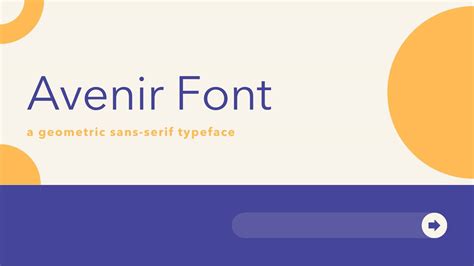
Hey guys, let’s talk about the Avenir font . If you’re into design, typography, or just appreciate a clean, modern look, you’ve probably come across this gem. It’s one of those fonts that just works across a ton of applications, from branding to web design to print. So, how do you get your hands on it? Let’s dive into the world of Avenir font download options, the different versions available, and why this typeface has stood the test of time. We’ll cover everything you need to know to start using Avenir in your next project. Stick around, and we’ll make sure you’re equipped with the knowledge to find and download the right Avenir font for your needs. It’s super versatile, and once you start using it, you’ll see why it’s a favorite for so many designers.
Understanding Avenir: More Than Just a Pretty Font
Before we jump into the download process, let’s take a moment to appreciate why the Avenir font is so beloved. Designed by Adrian Frutiger in 1987, Avenir means “future” in French, and it was his attempt to create a truly modern, geometric sans-serif typeface that was also humane and readable. He drew inspiration from geometric sans-serifs of the past, like Futura, but aimed to add a touch of warmth and organic structure. This balance is key to its enduring appeal. Unlike strictly geometric fonts that can sometimes feel cold or mechanical, Avenir has subtle irregularities that make it more friendly and approachable. Think about the ‘o’ – it’s not a perfect circle, and the ascenders (like on the ‘h’ or ‘l’) have a slight humanist touch. This blend of geometric structure and humanist feel makes Avenir incredibly versatile. It’s legible on screens, looks sharp in print, and carries a sense of sophistication without being stuffy. It’s the kind of font that elevates your design without shouting for attention, a subtle but powerful tool in any designer’s arsenal. The various weights and styles available in the Avenir family further enhance its usability, offering designers a broad spectrum to work with for everything from headlines to body text. This attention to detail and thoughtful design is what makes Avenir a timeless classic.
Avenir vs. Avenir Next: What’s the Difference?
Okay, so you’re probably wondering, “What about Avenir Next ? Is it the same thing?” Great question, guys! While they share the same DNA, Avenir Next is actually an updated and expanded version of the original Avenir. It was released in 2007, a collaboration between Frutiger and Akira Kobayashi, to refine and extend the family for the digital age. They tweaked the spacing, redrawn some characters for better legibility on screens, and added more weights and styles. Specifically, Avenir Next offers a wider range of weights, including lighter and bolder options that weren’t as prevalent in the original. The x-height was also adjusted for improved readability in smaller sizes and on lower-resolution displays. The goal was to make it even more suitable for the demands of contemporary digital design, while still retaining the core essence of Frutiger’s original vision. So, if you’re working on a project that will primarily be viewed on screens, or if you need a more extensive range of weights for complex typographic hierarchies, Avenir Next might be your go-to. The original Avenir still holds up beautifully, but Avenir Next is often considered the more robust and refined option for modern applications. Understanding these nuances can help you make the best choice for your specific design needs. It’s like comparing a classic car to a modernized version – both are great, but one might be better suited for today’s roads.
Using Avenir in Your Designs: Tips and Tricks
Once you’ve got that Avenir font download sorted and your license secured, it’s time to put it to work! Avenir and Avenir Next are incredibly versatile, but like any tool, knowing how to use them effectively can make a huge difference. For headlines and titles, the bolder weights (like Medium, Heavy, or Black) really shine. They offer excellent impact and readability, even at large sizes. Pair a bold Avenir headline with a lighter weight, like Light or Book, for body copy to create a clear typographic hierarchy. This contrast helps guide the reader’s eye through your content. In web design, Avenir Next is particularly fantastic due to its optimized screen rendering. Consider using it for navigation menus, call-to-action buttons, and key informational text. Its clean lines ensure legibility across various devices and screen resolutions. For print materials, like brochures, posters, or business cards, Avenir conveys a sense of professionalism and modern elegance. Don’t be afraid to experiment with the different weights. You can create subtle emphasis by using italics or slightly bolder variants within the same text block. For branding, Avenir is a solid choice because it’s recognizable, professional, and doesn’t easily go out of style. Its neutrality means it can adapt to various brand personalities, whether you’re aiming for sophisticated, friendly, or innovative. Just remember to maintain good spacing – even the best fonts can falter with poor kerning or leading. Use the OpenType features if available, like alternate characters or ligatures, to add that extra polish. Ultimately, the key is to let the font’s inherent qualities speak for themselves and use its range to enhance your message, not overpower it.
Pairing Avenir with Other Fonts
While Avenir is a powerhouse on its own, sometimes you might want to pair it with another font to add more character or contrast to your design. This is where things get fun, guys! When pairing, the general rule of thumb is to contrast, not compete. Since Avenir is a sans-serif with geometric and humanist influences, you have a lot of flexibility. A popular and effective pairing is with a serif font. Think of pairing a clean Avenir headline with a more traditional or robust serif for body text. This creates a classic, sophisticated look that works well for editorial design, websites, or even formal invitations. Good serif options that complement Avenir include Garamond, Merriweather, or even something more modern like Playfair Display. Another approach is to pair Avenir with a more distinct or decorative display font for headlines, using Avenir in a lighter weight for the supporting text or body copy. This allows a more stylized font to grab attention without making the entire design feel chaotic. Alternatively, you can pair Avenir with another sans-serif, but choose one with a noticeably different character. For example, pair Avenir’s clean geometry with a more humanist sans-serif like Open Sans or Lato for a softer feel, or contrast it with a more industrial, utilitarian sans-serif if your brand calls for it. The key is to ensure that each font has a distinct role and that they work harmoniously together to serve the overall design. Test your pairings at different sizes and contexts to see how they perform. A well-chosen font pairing can significantly elevate your design and make it more engaging for your audience.
The Legacy and Future of Avenir
It’s pretty incredible to think that a font designed in the late 1980s is still so relevant and widely used today. The Avenir font is a testament to timeless design principles. Adrian Frutiger’s intention to create a typeface that was both modern and humane clearly resonated, and its adaptability across decades and technological shifts is remarkable. The evolution into Avenir Next further cemented its place in the digital age, proving that good design can and should evolve. Its clean, legible, and sophisticated aesthetic makes it a go-to for countless brands and designers seeking reliability and style. From tech startups to luxury brands, from websites to packaging, Avenir’s presence is widespread, often working so seamlessly in the background that you might not even consciously notice it, yet its contribution to the overall design is undeniable. This ubiquity speaks volumes about its quality and appeal. As design trends continue to shift, the fundamental principles of clarity, readability, and aesthetic balance that Avenir embodies will likely ensure its continued relevance. It’s a font that doesn’t rely on fleeting fads but on solid typographic craftsmanship. The future of Avenir, particularly Avenir Next, looks bright, as it continues to be refined and supported, ensuring it remains a powerful tool for communication in an ever-changing visual landscape. It’s a true classic, and its legacy is secure.
Why Choose Avenir for Your Next Project?
So, after all this talk, why should you consider the Avenir font download for your next big project? Simple: reliability, versatility, and timeless style . Whether you’re designing a logo, a website, a presentation, or a book, Avenir offers a dependable and professional look that rarely disappoints. Its balanced design ensures legibility across all media, from the smallest screen to the largest billboard. If you need a font that conveys clarity, sophistication, and a touch of modern elegance without being overly trendy, Avenir is your answer. It’s the safe, yet stylish, choice that elevates your message. Plus, with Avenir Next offering even more refinements for digital use and a wider range of weights, you have the flexibility to tackle almost any typographic challenge. So go ahead, get the license, download the font, and see how Avenir can bring a touch of class and clarity to your next design endeavor. You won’t regret it!